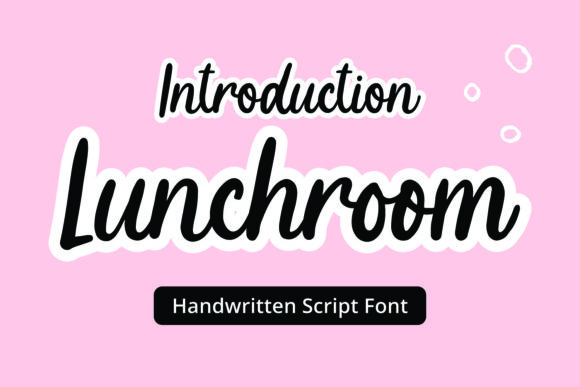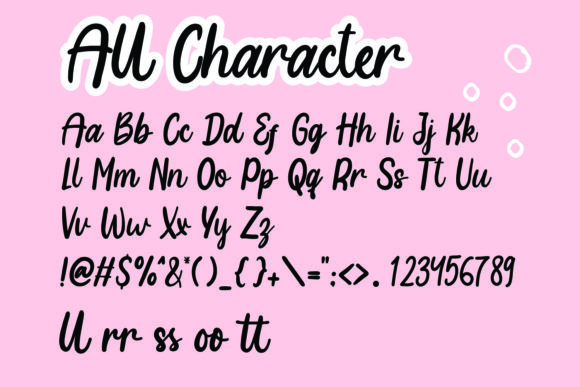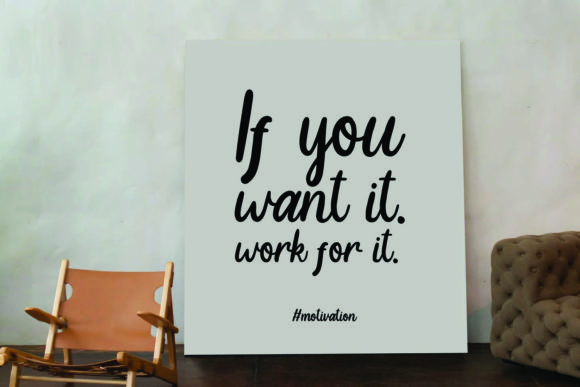
About Lunchroom Font
Lunchroom is a lovely script font featuring charming, playful characters that seem to dance along the baseline. Add this font to your most creative ideas, and notice how it makes them stand out!